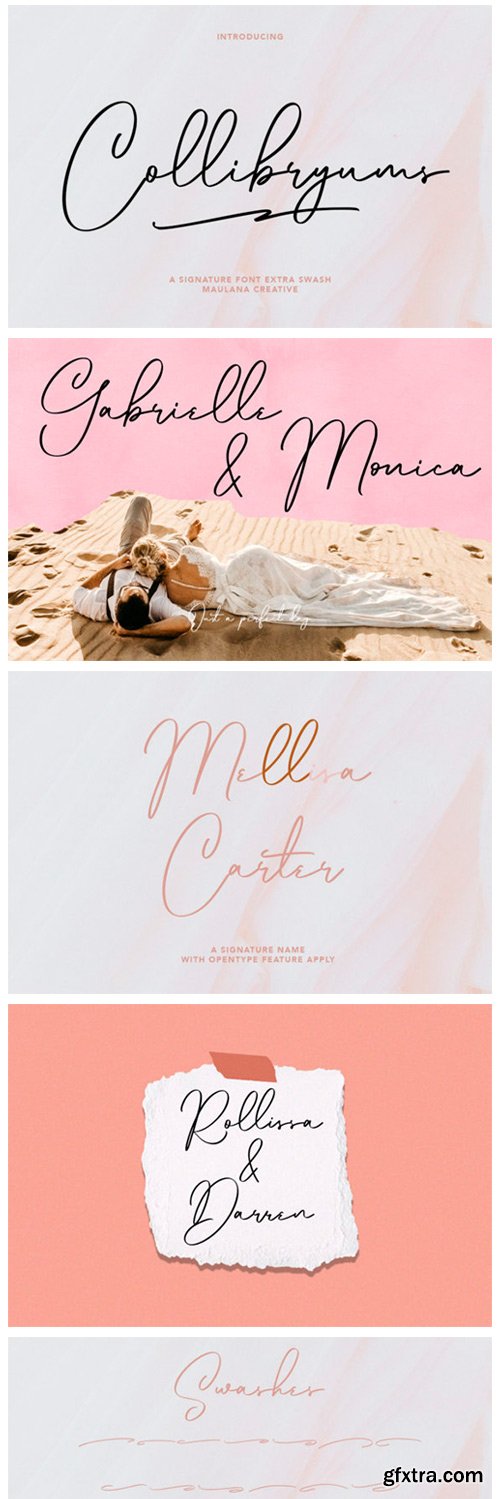
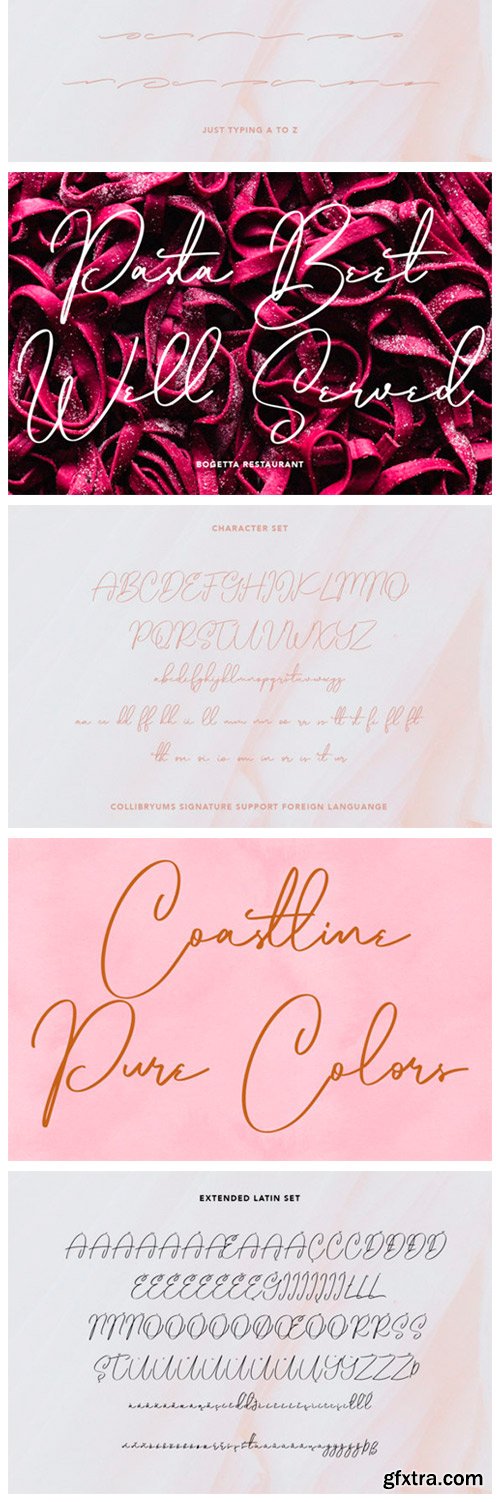
Collibryums Font
Collibryums is a beautiful handwritten font. Fall in love with its completely different and timeless style and use it to create spectacular designs!
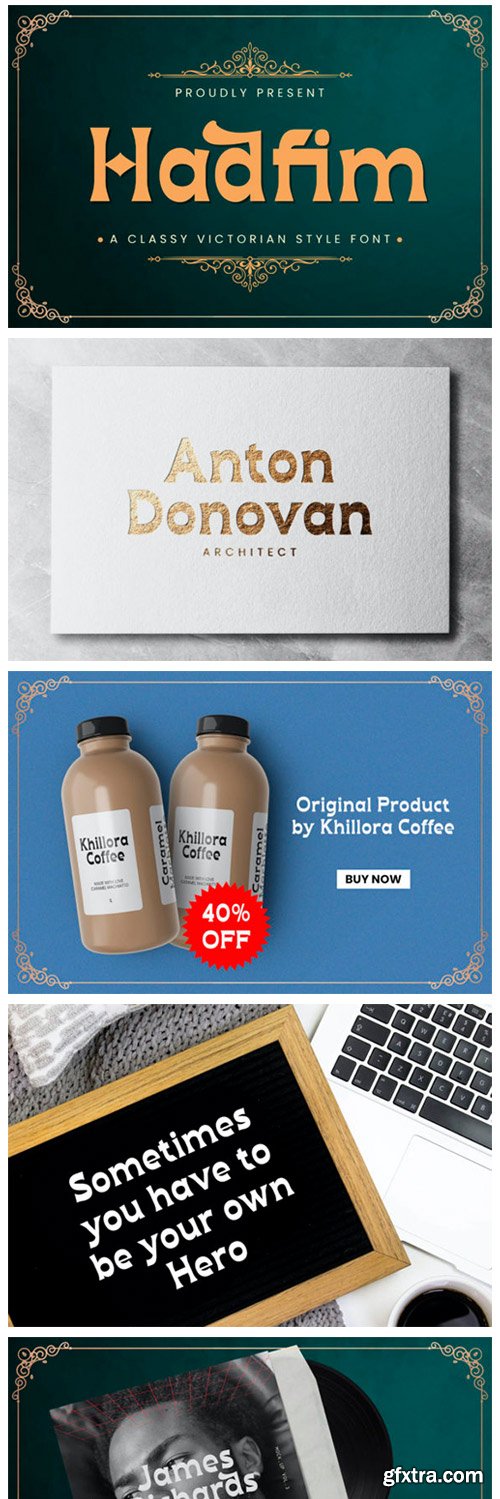
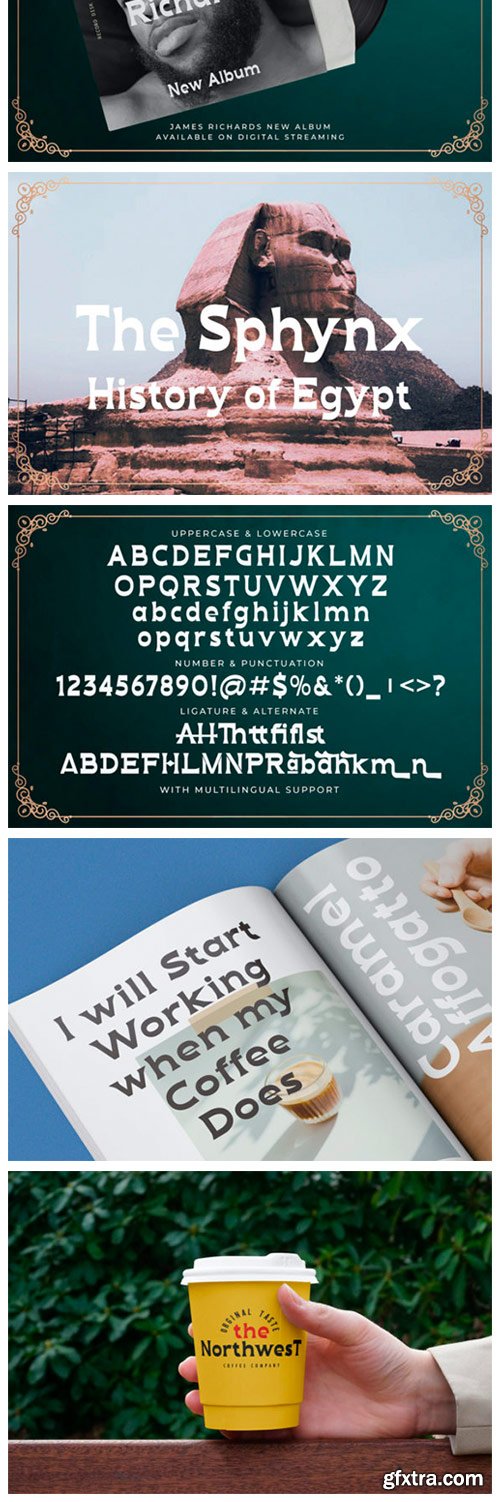
Hadfim Font
Hadfim is a distinct, thick lettered and bold display font. It is defined by smooth curves and is perfect for fashion branding or editorial designs. Add it confidently to your projects, and you will love the results.
Awaken Font
Awaken is an assertive yet distinct serif font. Its elegance and simplicity make this font look absolutely fabulous on a variety of design ideas, both formal and informal.
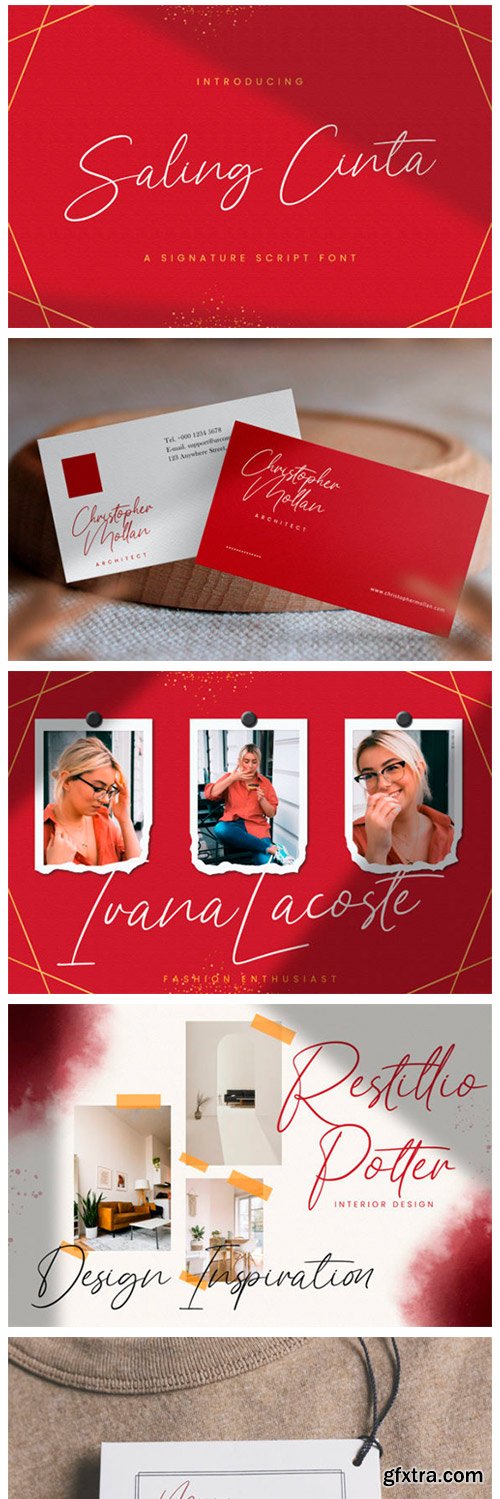
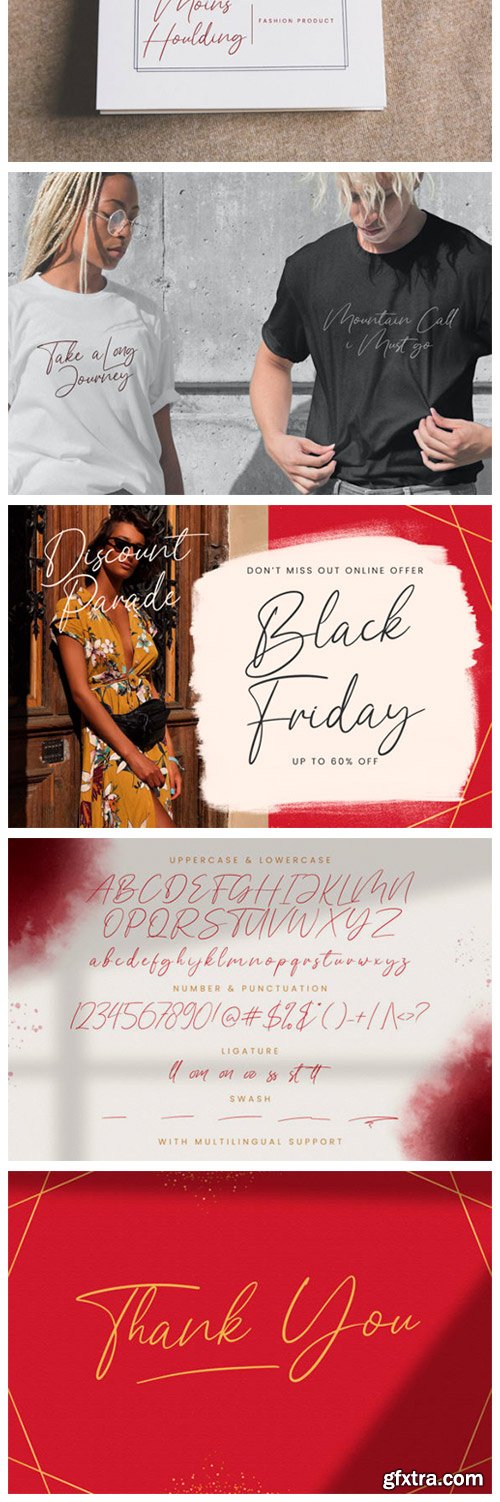
Saling Cinta Font
Saling Cinta is a sweet and cursive script font. It looks ravishing on every design which needs a personalized touch. Fall in love with its incredibly versatile style and use it to create spectacular designs!
Blossom Font
Blossom is a romantic and sweet calligraphy typeface with characters that dance along the baseline. It will add a luxury spark to any design project that you wish to create! This font is PUA encoded which means you can access all of the amazing glyphs and ligatures with ease!
Kelly Signature Font
Kelly Signature is a unique handwritten font. A little bit quirky, this font looks incredibly adept on a wide variety of contexts! This font is PUA encoded which means you can access all of the glyphs and swashes with ease!
Minormayor Font
Minormayor is a cute and flowing handwritten font. Fall in love with it and bring your projects to the highest levels!
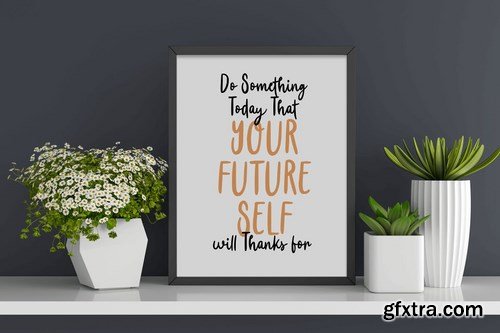
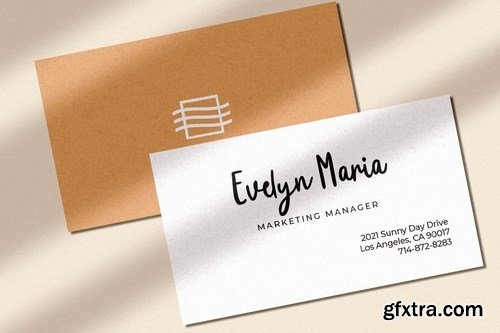
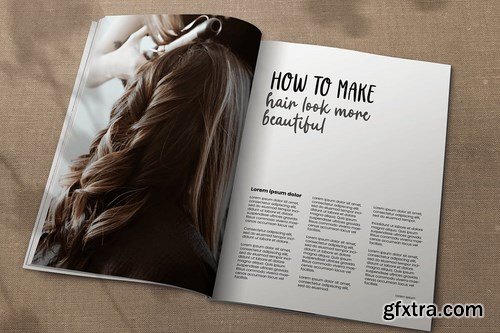
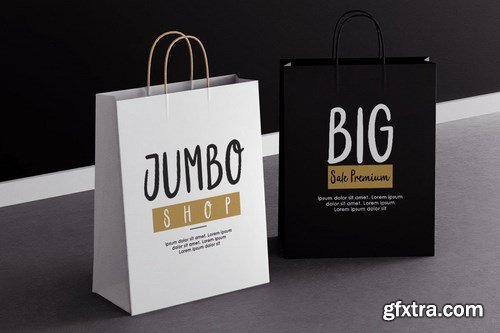
Olivia Robinson is a Handwritten Script font with natural, fun, modern, and enjoy style. This font crafted specials for funny-themed projects, ready to use on branding, Social Media, Logo, and Many more that needs charming touches.
MeeMee is a typeface containing 72 handmade kids doodles and a lovely handwritten kids lettering font
Proudly Present, Girlish Font.
Girlish is a Lovely Modern Calligraphy Font.
Rhileida is a beauty script font with ending swash. Fall in love with its incredibly versatile style and use it to create spectacular designs!